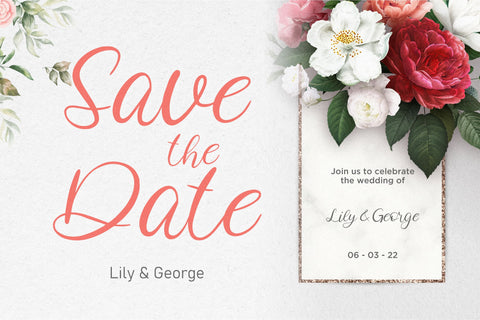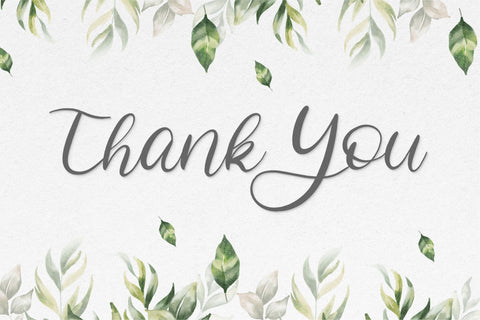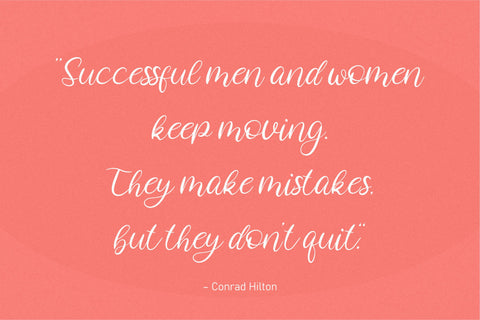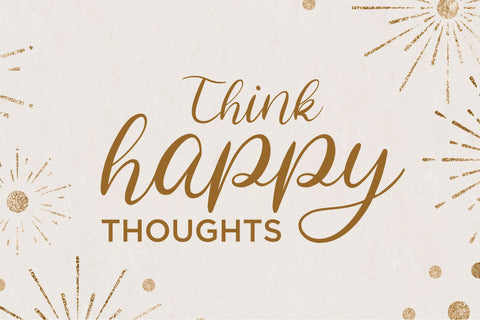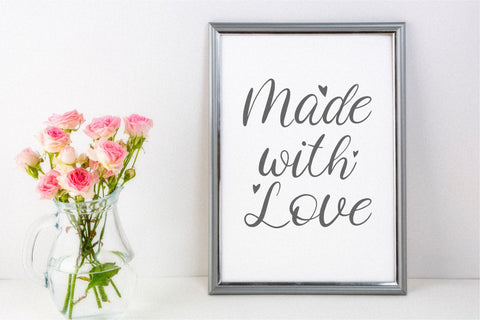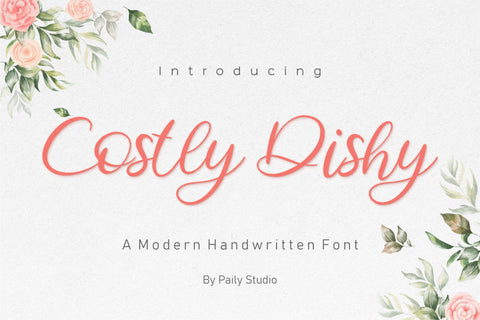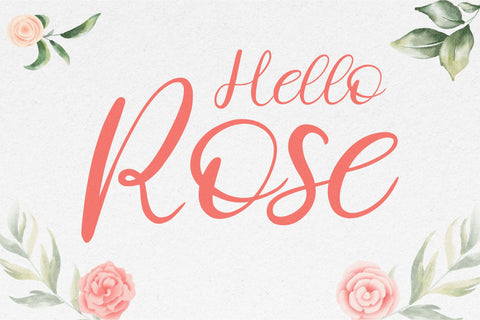
Costly Dishy Modern Handwritten Font
Costly Dishy is a Modern Handwritten Font.
Costly Dishy can be used for wide ranges of application, such as wedding design, branding project, logo, poster, name card, invitations, social media posts, and others.